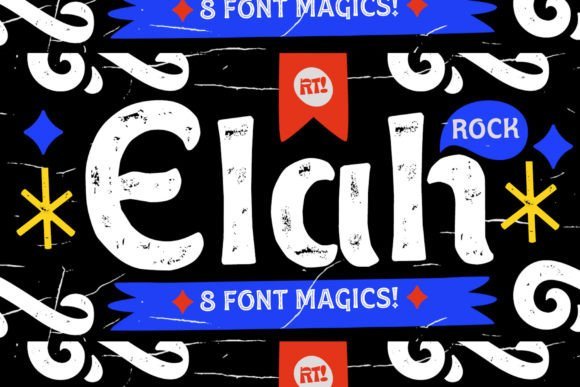
The Birth of a Bold New Font
Have you ever been brainstorming ideas for a project, and suddenly, the perfect concept hits you like a ton of bricks? That’s exactly what happened when a team of designers created the Elah Rough Font – a game-changing typeface that’s about to shake up the world of typography. This bold new font is designed specifically for headlines, with a raw, energetic vibe that’s guaranteed to grab the viewer’s attention.
Elah Rough Font is all about capturing the essence of “rough” – a feeling that’s both edgy and exciting. With its unconventional style, this font is perfect for designers who want to add some visual punch to their work. Whether you’re creating a bold campaign or a striking social media post, Elah Rough Font is the perfect tool to help you make a lasting impression.
Elah Rough Font Key Features
- Font Style: Handwritten, Rough
- Unique Characteristics: Elah Rough Font features a unique blend of modern and vintage elements, with intricate details and subtle imperfections that give it a distinctive, hand-crafted look.
Elah Rough Font Review
Overall, I found the Elah Rough Font to be a great addition to any design project. It’s got a unique, hand-drawn feel that adds a touch of personality to text.
- Unique, hand-drawn feel that adds a personal touch to text
- Great for use in headings and titles, where its boldness really shines
- Clean and easy to read, even in smaller font sizes
- May not be suitable for use in body text, as it can be a bit too ornate
- Some characters may not be as perfectly formed as others, which can affect the overall look of text
- Not as versatile as some other fonts, which can limit its use in different design contexts
Overall, I would say that the Elah Rough Font is a great choice for designers looking to add a bit of personality to their work. While it may have some limitations, its unique feel and clean design make it a great addition to any project.
For the most effective use of Elah Rough Font, use it for headings and titles in designs where a rough, handwritten look is desired. Elah Rough Font is particularly well-suited for creating a vintage or distressed look in your designs.